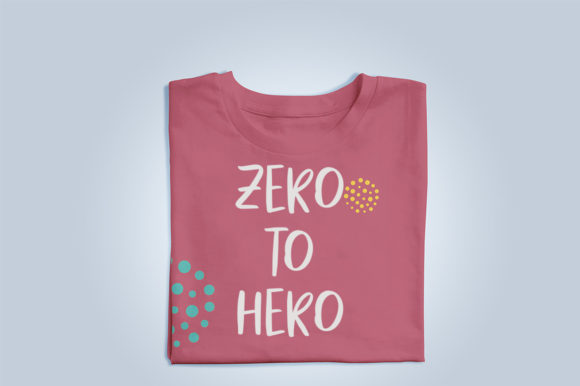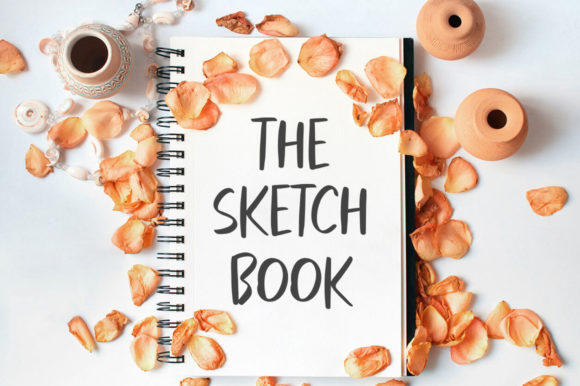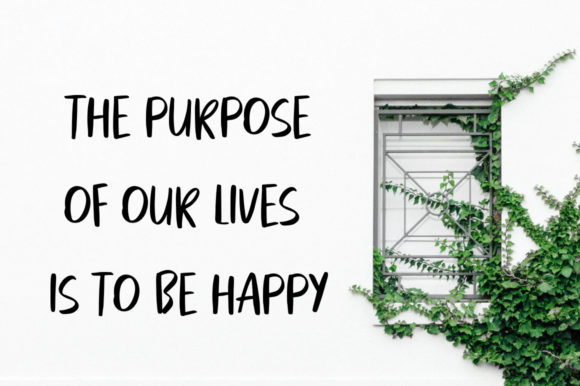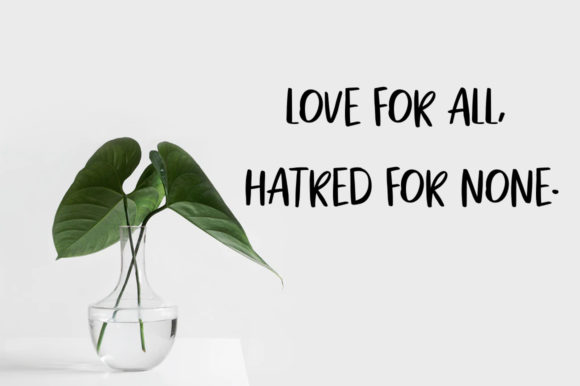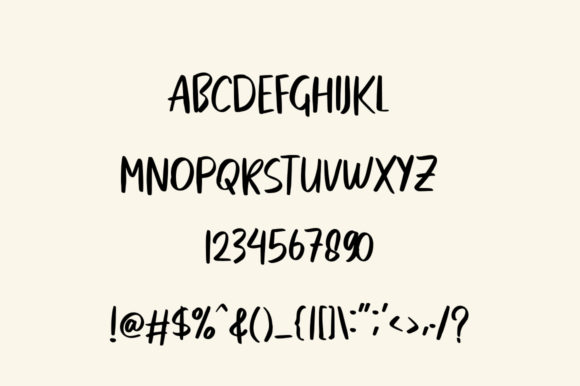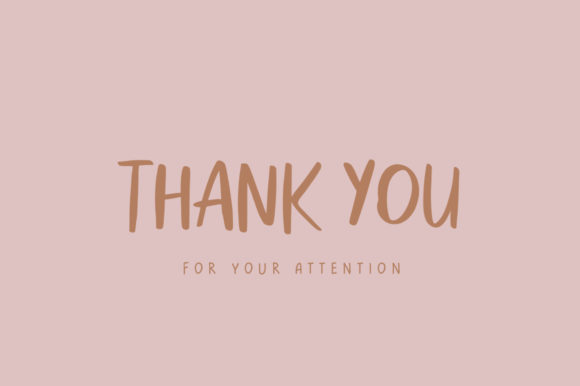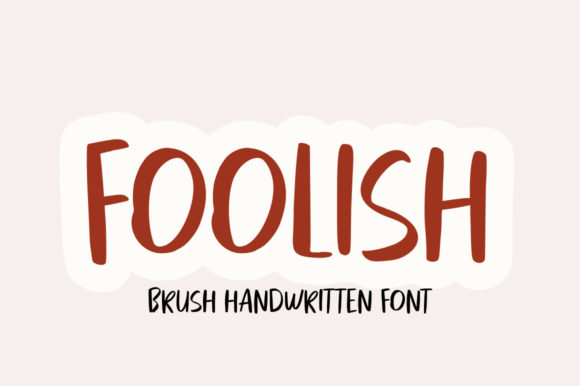
Foolish Font: Adding a Modern and Personal Touch to Your Designs
Are you tired of using the same old fonts in your design projects? Do you want to add a touch of personality and whimsy to your creations? Look no further than Foolish Font, a fun and friendly handwritten font that’s perfect for designers and crafters alike. In this article, we’ll take a closer look at Foolish Font, its features, and how you can use it to elevate your designs.
What is Foolish Font?
Foolish Font is a modern handwritten font that’s designed to add a personal touch to your designs. With its fun and friendly vibe, it’s perfect for a wide range of projects, from branding and advertising to crafting and DIY tutorials. The font is carefully crafted to be highly legible, making it easy to read and understand, even at small sizes.
Key Features of Foolish Font
- Handwritten style: Foolish Font has a beautiful, handwritten style that’s perfect for adding a personal touch to your designs.
- Modern and clean: Despite its handwritten style, Foolish Font has a modern and clean look that’s perfect for contemporary designs.
- Highly legible: The font is carefully crafted to be highly legible, making it easy to read and understand, even at small sizes.
- Versatile: Foolish Font is perfect for a wide range of projects, from branding and advertising to crafting and DIY tutorials.
How to Use Foolish Font in Your Designs
Foolish Font is incredibly easy to use, and can be incorporated into your designs in a variety of ways. Here are a few ideas to get you started:
- Branding and advertising: Use Foolish Font to create eye-catching logos, business cards, and ad campaigns that stand out from the crowd.
- Crafting and DIY tutorials: Add a personal touch to your crafting and DIY tutorials with Foolish Font, perfect for titles, headings, and body text.
- Social media graphics: Use Foolish Font to create engaging social media graphics, such as Facebook posts, Instagram stories, and Twitter headers.
- Web design: Incorporate Foolish Font into your web design projects, such as website headers, buttons, and body text.
Benefits of Using Foolish Font
So why should you choose Foolish Font for your designs? Here are just a few benefits:
- Adds personality: Foolish Font adds a personal touch to your designs, helping you to stand out from the crowd.
- Increases engagement: The fun and friendly vibe of Foolish Font can help to increase engagement with your audience.
- Improves readability: The high legibility of Foolish Font makes it easy for your audience to read and understand your content.
Tips for Using Foolish Font Effectively
Here are a few tips for using Foolish Font effectively in your designs:
- Use it sparingly: While Foolish Font is fun and friendly, it can be overwhelming if used too much. Use it sparingly to add emphasis and personality to your designs.
- Pair it with other fonts: Foolish Font pairs well with other fonts, such as sans-serif fonts like Arial or Helvetica. Experiment with different pairings to find the perfect combination for your design.
- Experiment with colors: Foolish Font looks great in a variety of colors, from bright and bold to pastel and soft. Experiment with different colors to find the perfect look for your design.
Foolish Font is a fun and friendly handwritten font that’s perfect for designers and crafters alike. With its modern and clean look, highly legible design, and versatile style, it’s perfect for a wide range of projects. Whether you’re looking to add personality to your branding, create engaging social media graphics, or improve the readability of your web design, Foolish Font is a great choice. So why not give it a try and see the difference it can make in your designs?